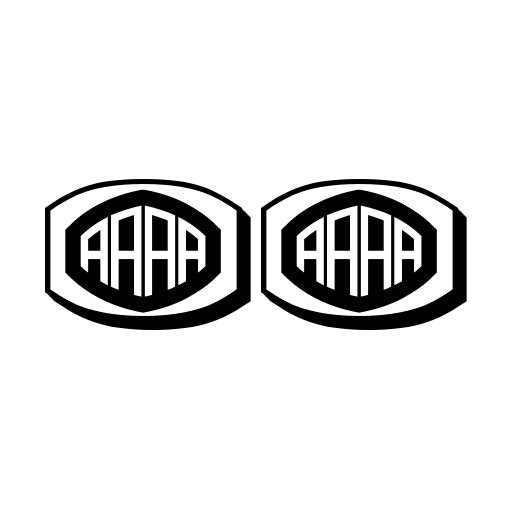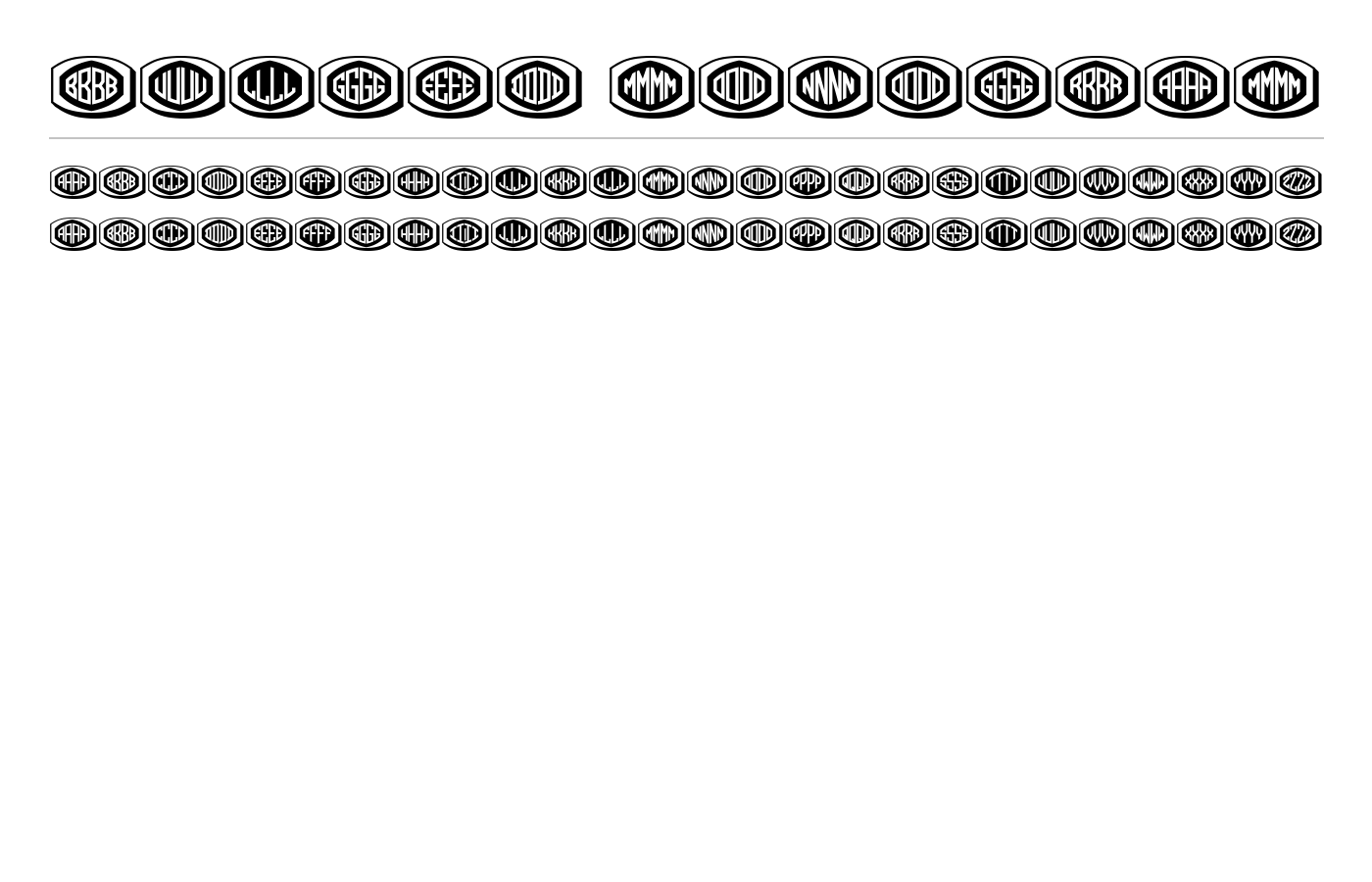
Bulged Monogram Font is a bold, condensed sans serif typeface designed for creating striking monograms with a modern geometric feel. Its thick, uniform strokes and slightly bulged oval enclosure give it a distinctive, compact look that works well for logos, branding, and decorative initials where a strong visual impact is desired. This font is ideal for fashion, luxury, or sports branding projects seeking a clean yet uniquely stylized identity.
Bulged Monogram Font
About Bulged Monogram Font